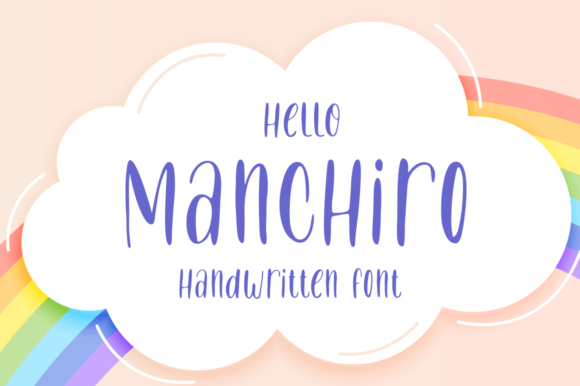
Have you ever been brainstorming a new design project, flipping through endless fonts, and suddenly, you stumble upon the perfect one? For many designers, this moment is pure magic. It’s the moment when everything comes together, and the project starts to take shape. For me, that moment happened when I discovered the Hello Manchiro Font.
This sweet and friendly handwritten font is designed to bring a touch of warmth and personality to any design. With its natural and unique style, Hello Manchiro Font is the perfect addition to a wide range of projects, from greeting cards to branding materials. As a designer, you’ll love the flexibility and versatility of this font, which makes it an invaluable asset in your creative toolkit.
- Unique Characteristics: Hello Manchiro Font features a unique, hand-drawn style with subtle irregularities, giving it a warm and friendly feel.
- Character Set: The font includes a comprehensive character set, covering Latin, Greek, and Cyrillic alphabets, as well as various symbols and punctuation marks.
Hello Manchiro Font Review
As a designer, I was excited to dive into the Hello Manchiro Font. Overall, I found it to be a solid choice for projects that require a playful, handwritten feel. ✨ The font’s organic texture and subtle imperfections give it a unique character that sets it apart from more traditional fonts.
- One of the standout features of Hello Manchiro is its versatility. It works well in both digital and print applications, making it a great choice for designers who need a font that can adapt to different mediums.
- The font’s bold weight is particularly effective for headings and titles, adding a touch of sophistication to any design.
However, there are some limitations to consider. ⚠️ One of the main concerns is the font’s limited language support. While it includes a range of Latin-based languages, it may not be suitable for projects that require support for non-Latin scripts.
Overall, I would recommend Hello Manchiro for designers who need a unique, handwritten font that can add a touch of personality to their projects. While it may have some limitations, its versatility and charm make it a solid choice for a wide range of applications.
Tip: Use the Hello Manchiro font for creating eye-catching headings and titles in your designs.
Tip: Use the Hello Manchiro font for creating custom typography and adding a personal touch to your designs.
Tip: Use the Hello Manchiro font for creating engaging presentations and documents.
The Hello Manchiro font is ideal for:
- Creating eye-catching headings and titles.
- Adding a personal touch to your designs.
- Creating engaging presentations and documents.